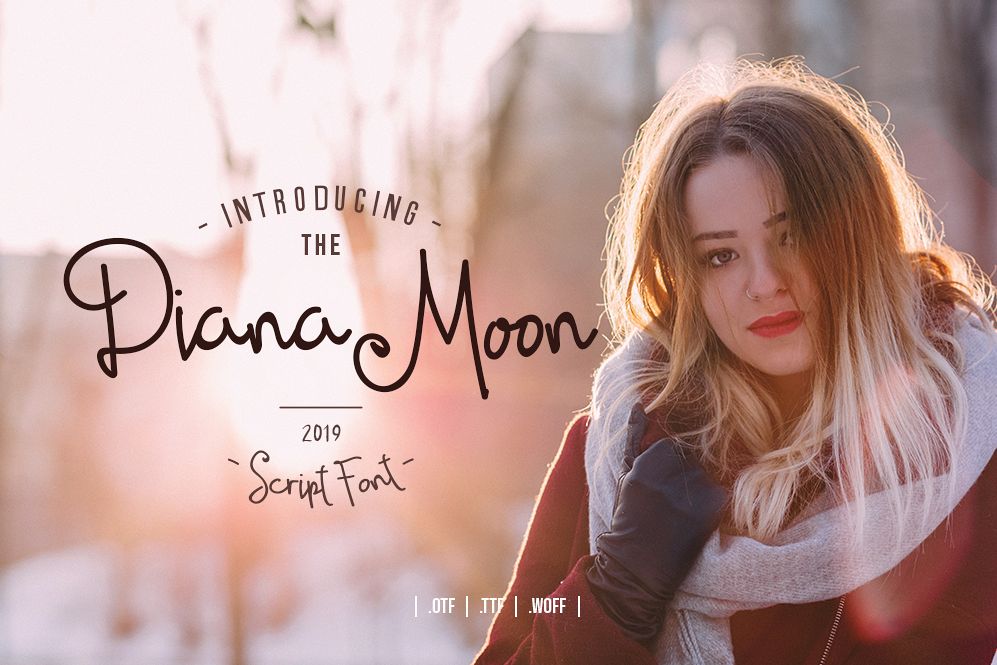
Diana Moon Script
Dianamoon-Script
Diana Moon Script is a stylish calligraphy font that features a varying baseline, smooth line, classic and interesting touch. Can be used for various purposes. such as headings, signature, logos, posters, t-shirt, signage, lable, wedding invitation, badges etc.What you get?